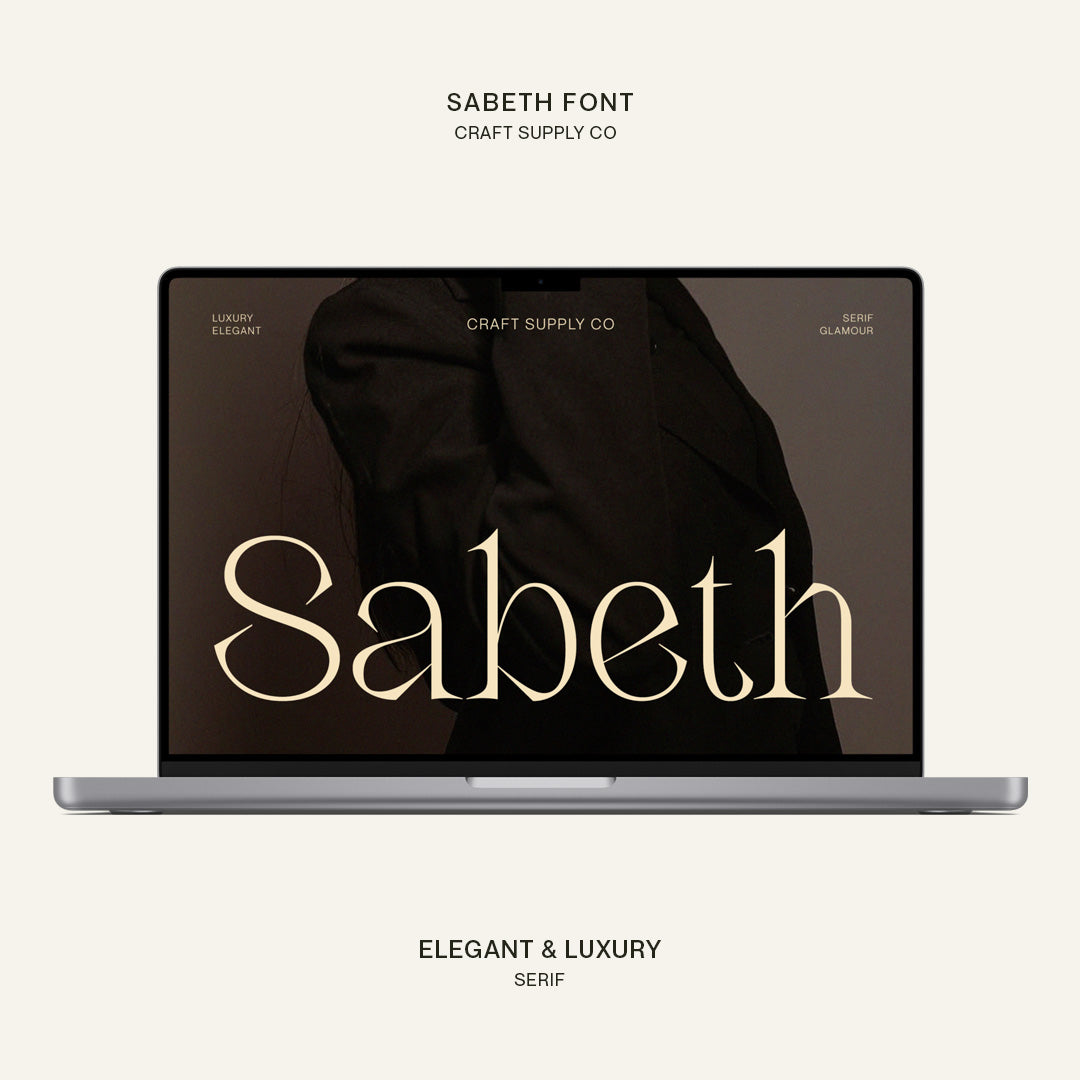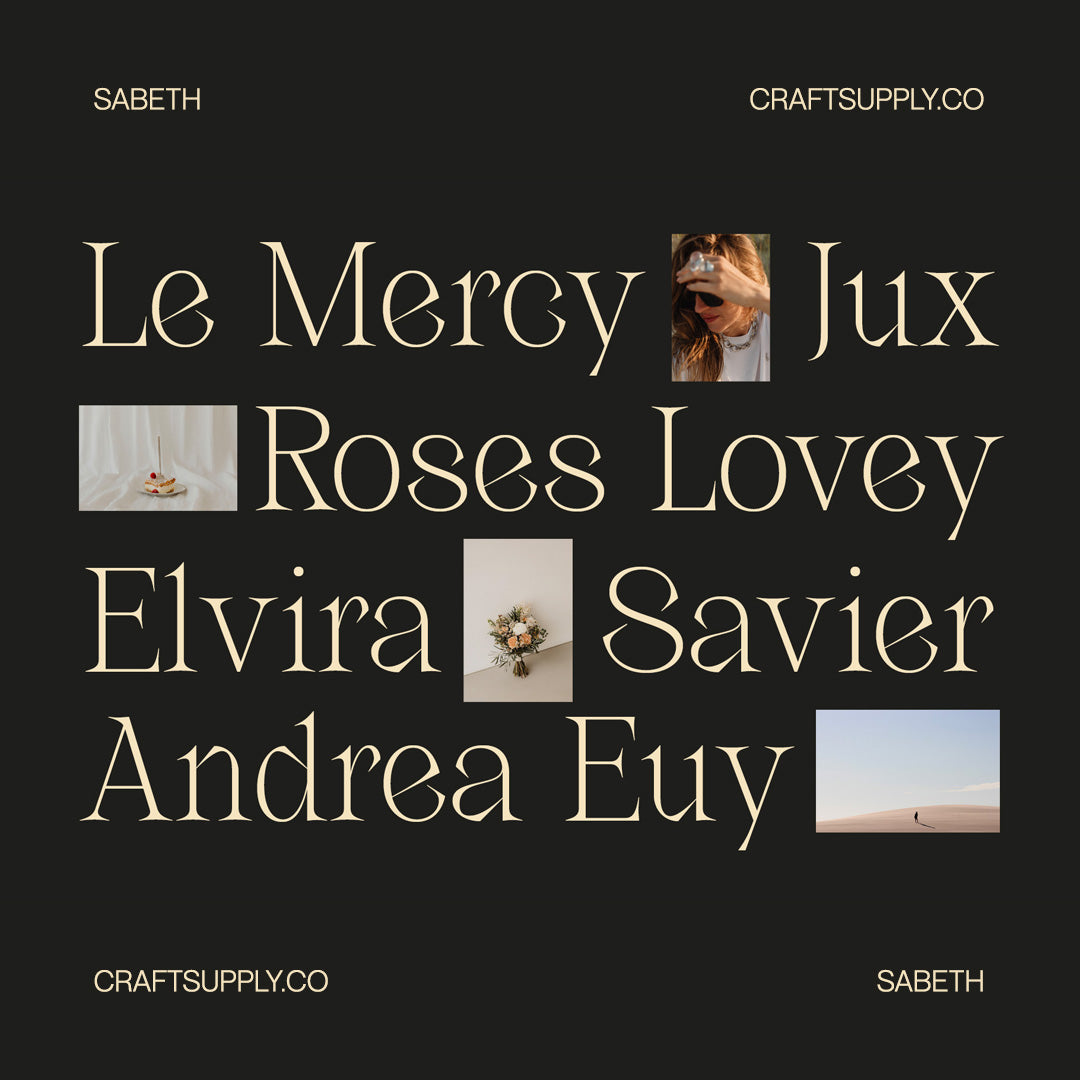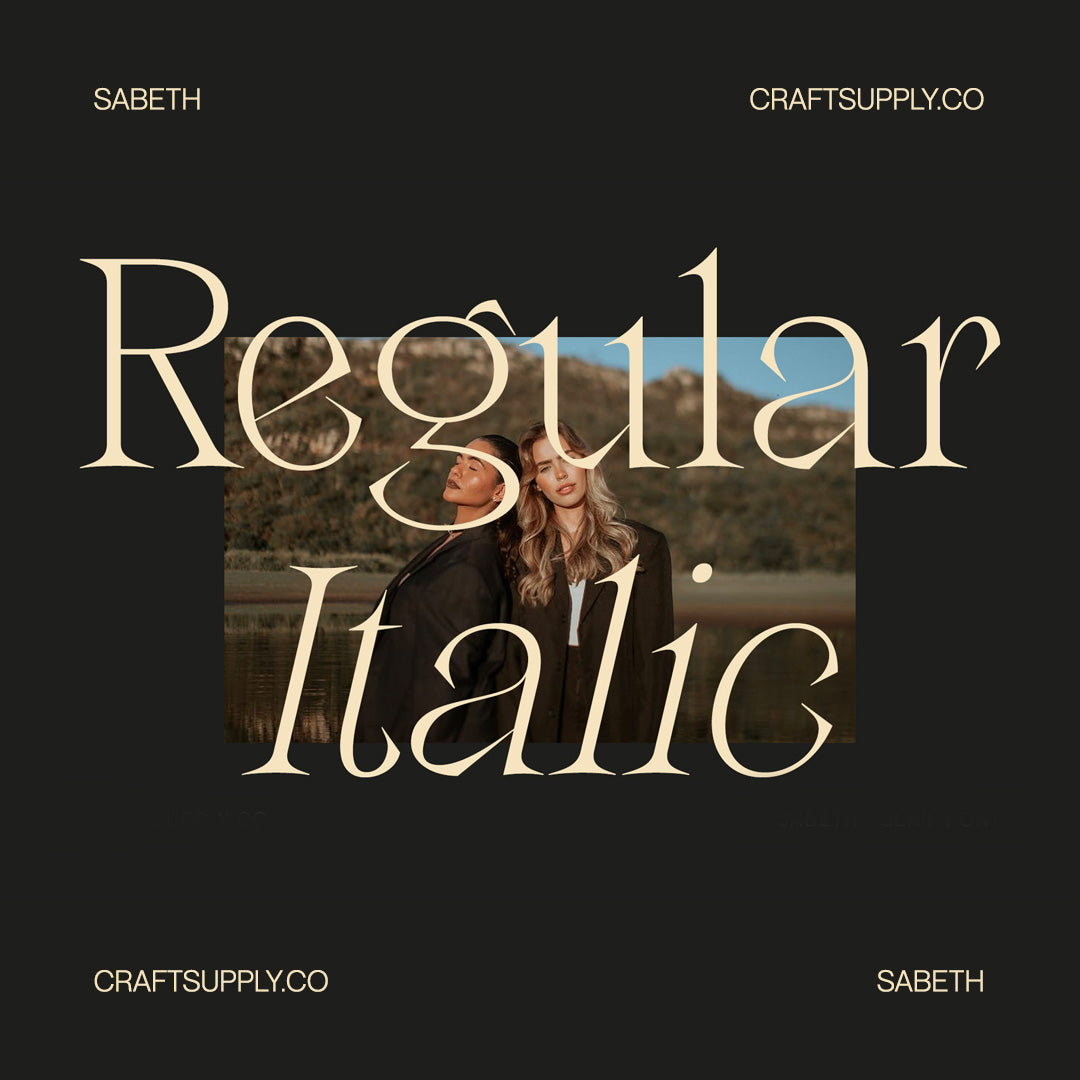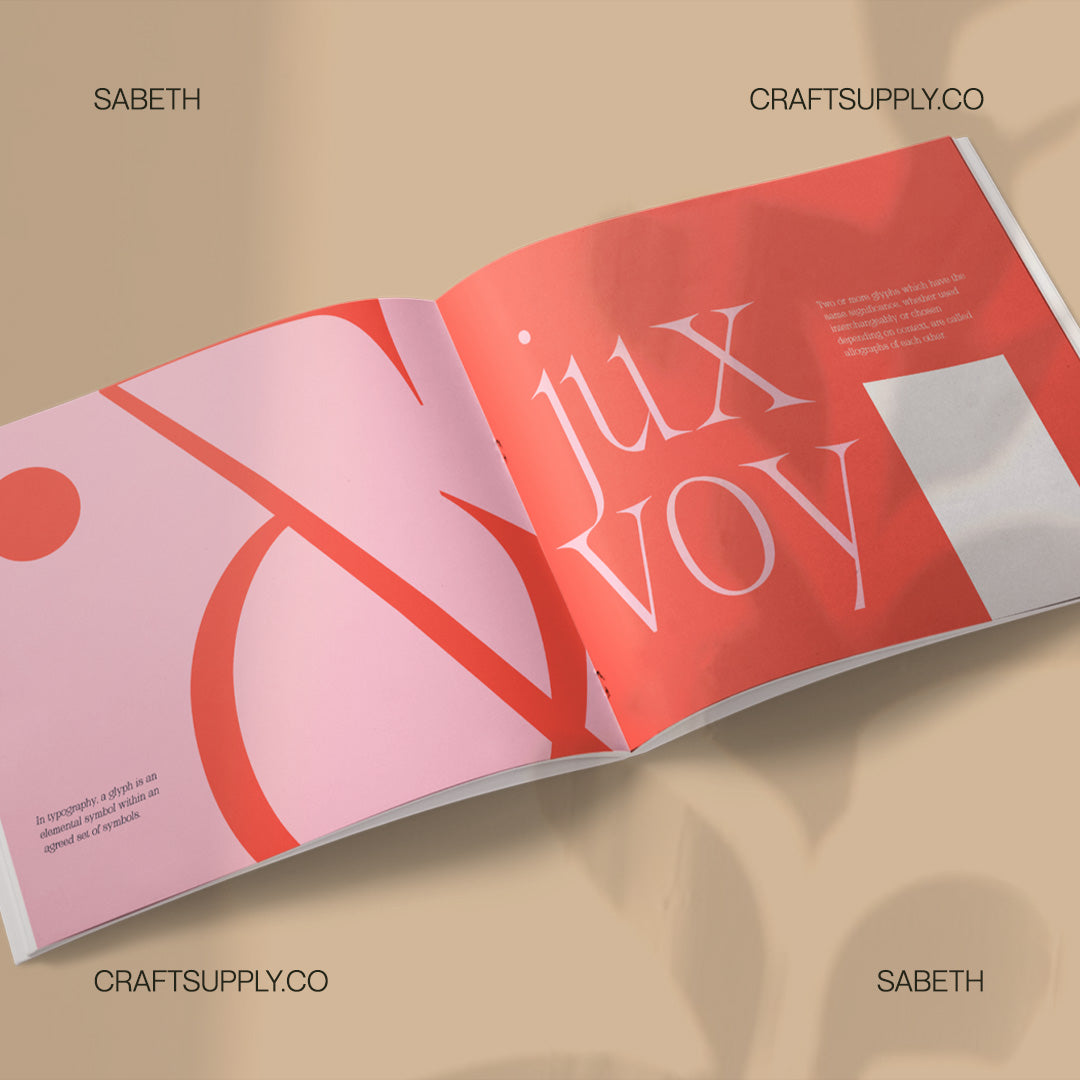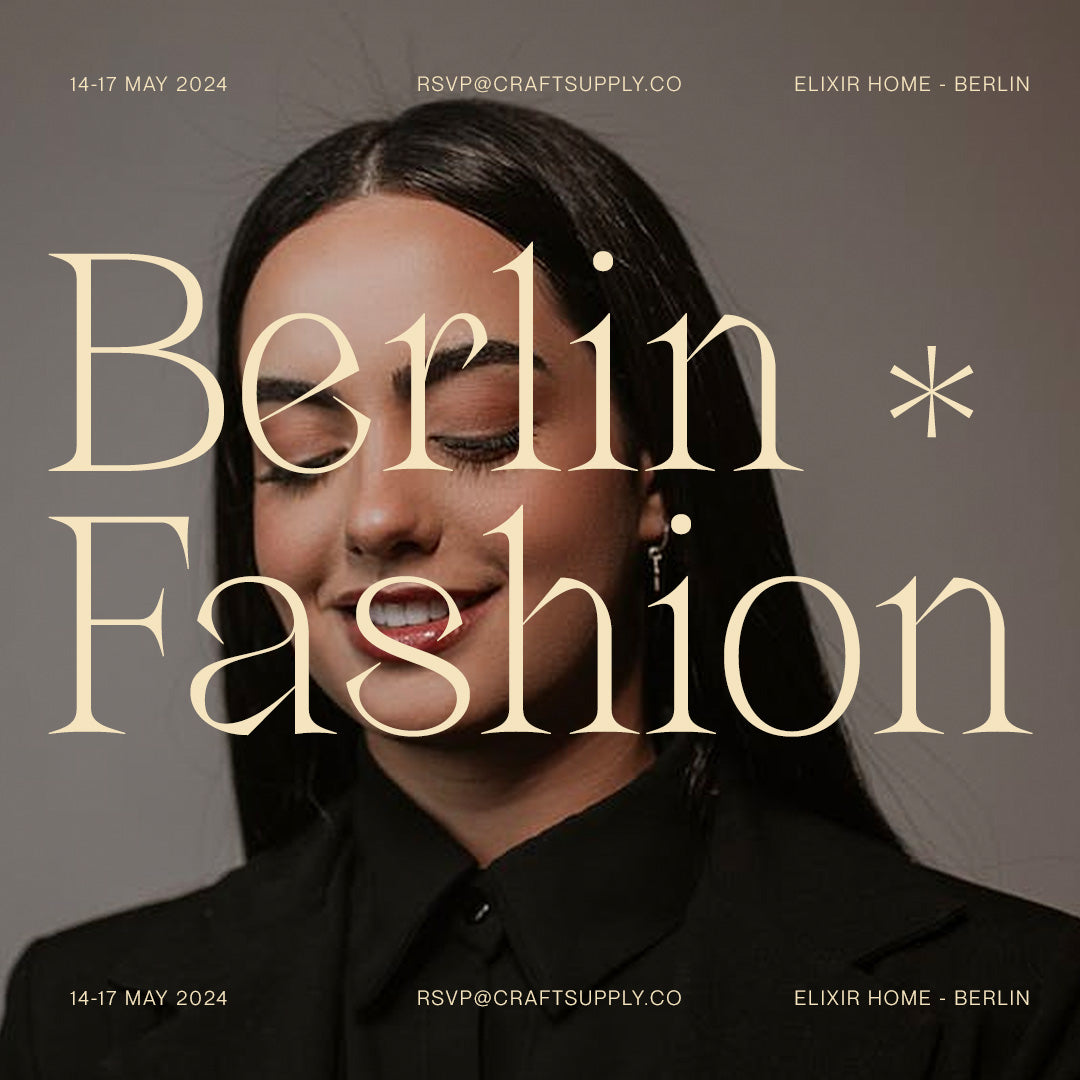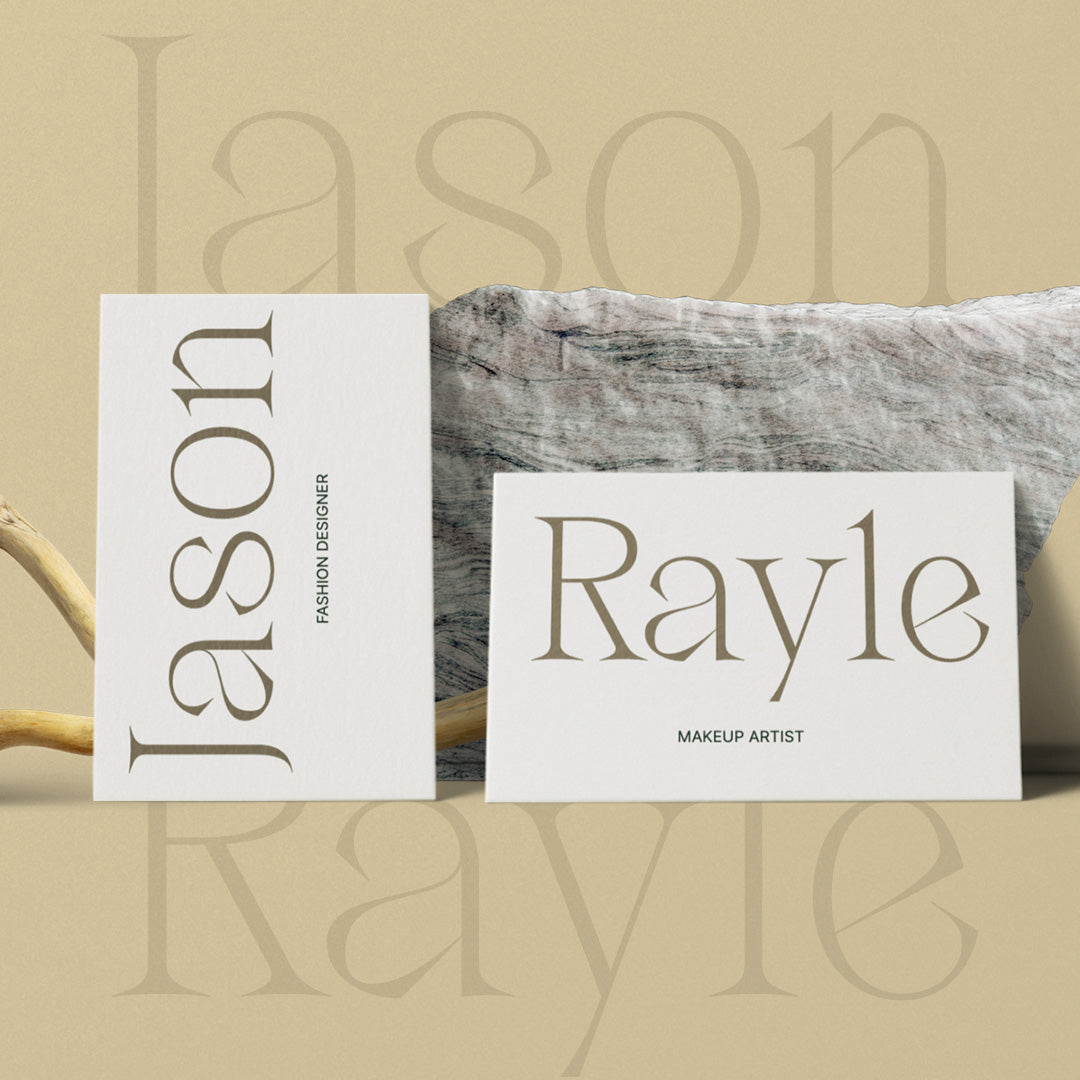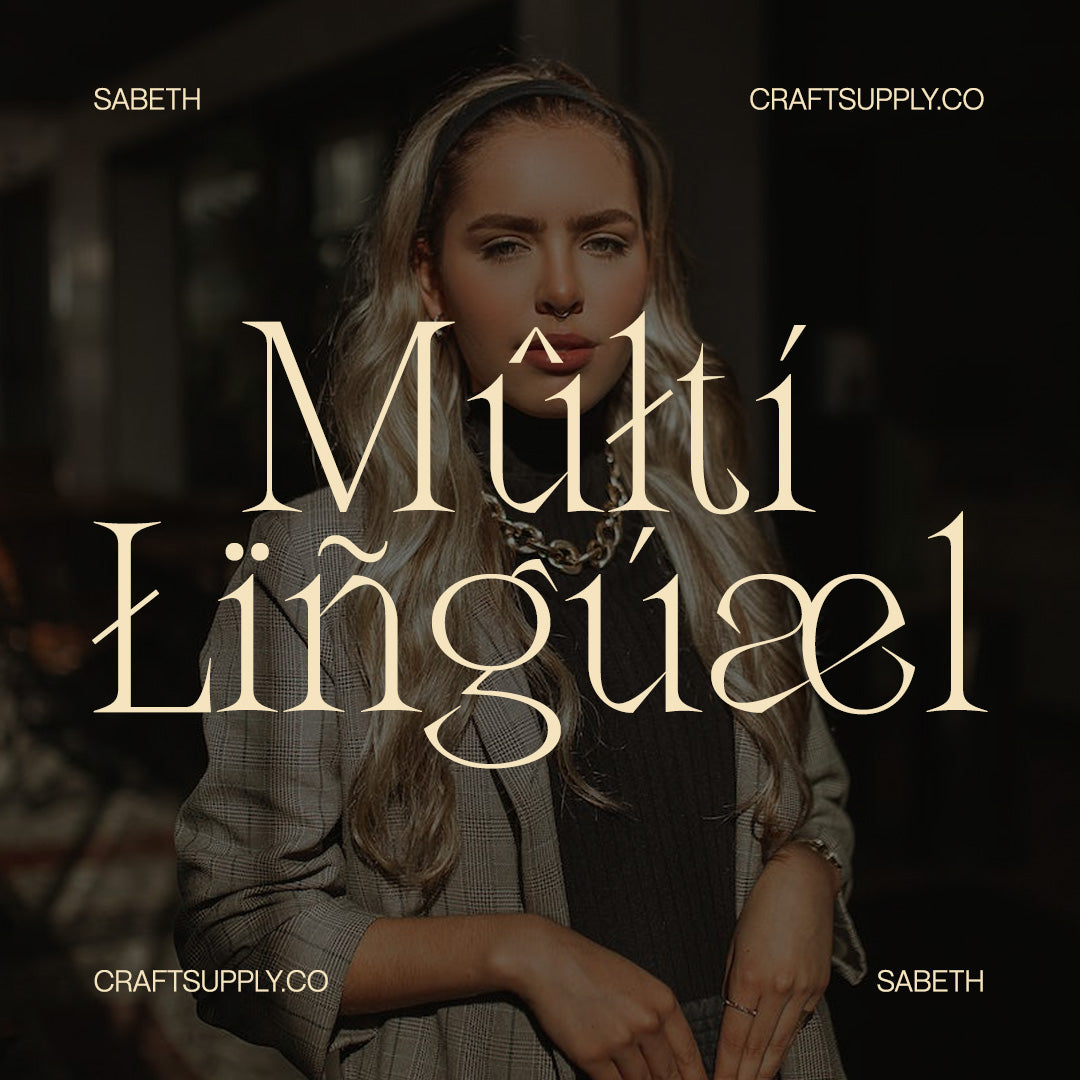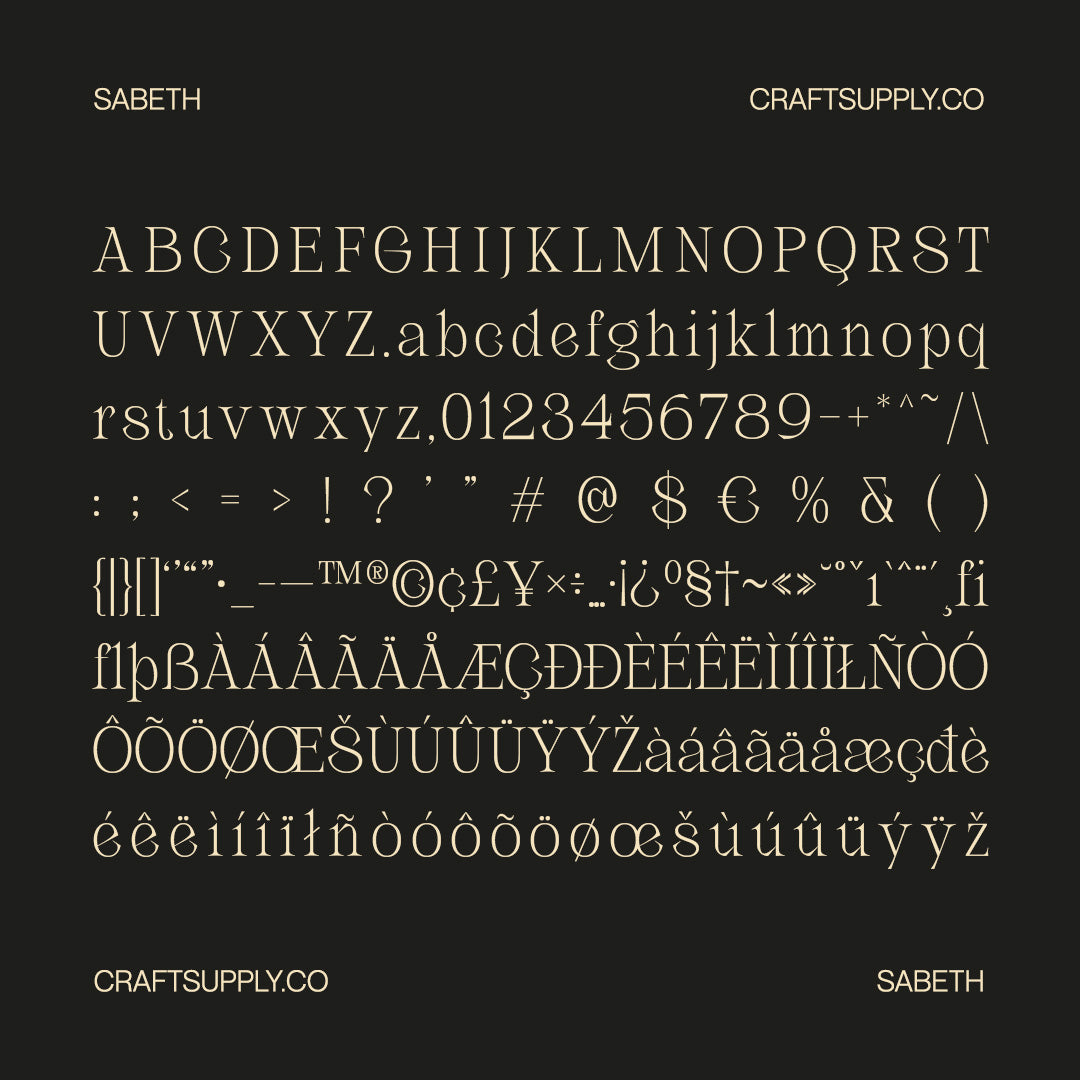
Sabeth – Elegant Typeface
Sabeth – Elegant Typeface for Luxury Design Projects
Sabeth, an elegant typeface, flawlessly embodies opulence, sophistication, and timeless allure. It serves as the perfect choice for various design projects, whether you’re working on greeting cards, packaging, brand identities, posters, or any creative endeavor that aims to captivate and stay on-trend. Unleash your creativity with this versatile typeface!
Sabeth Regular
Sabeth Italic
Sabeth is an elegant typeface designed for luxury design projects, featuring both Regular and Italic styles. It includes uppercase and lowercase characters, numerals, punctuation, multilingual accents, and is PUA encoded for versatile use.